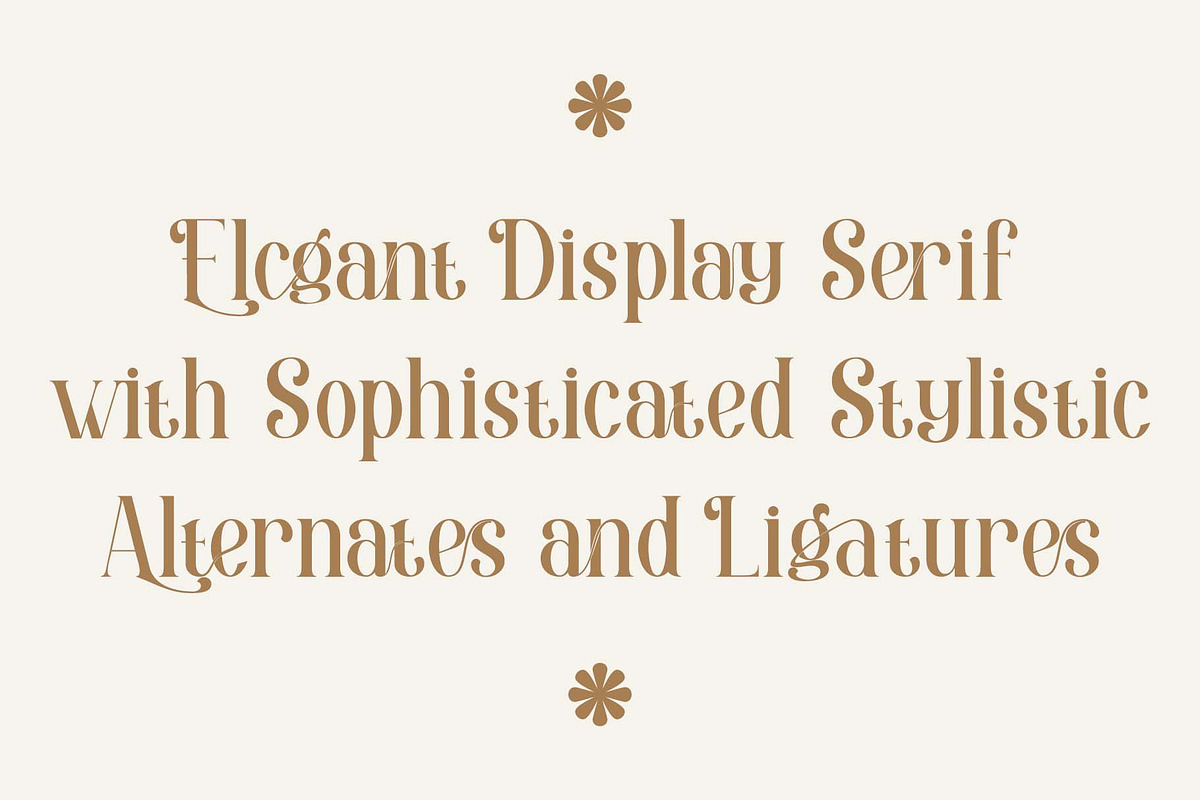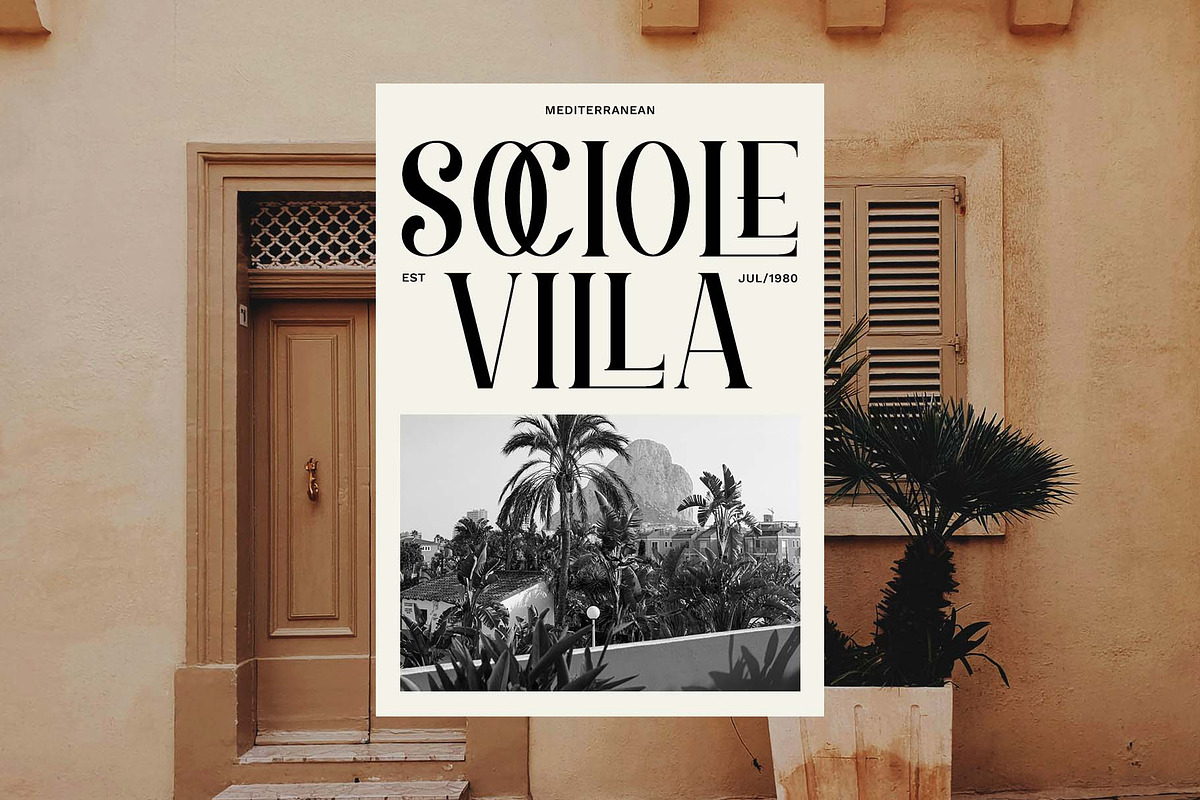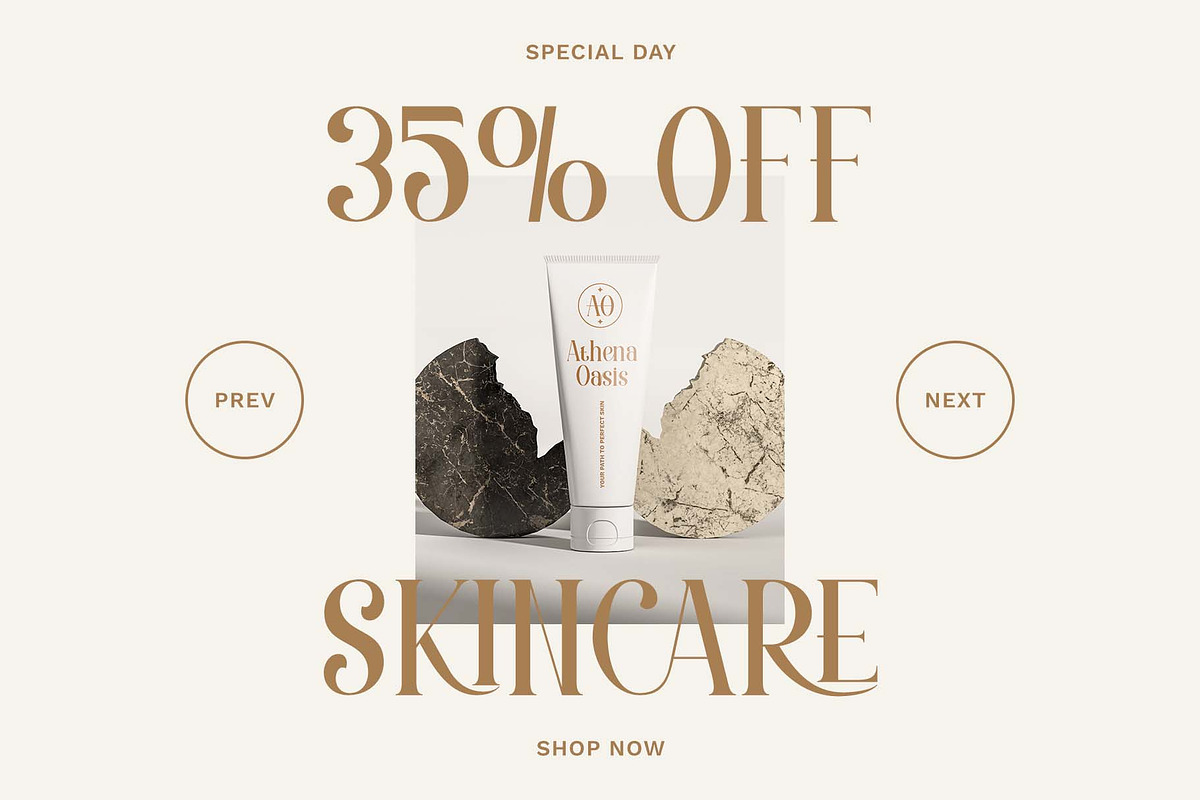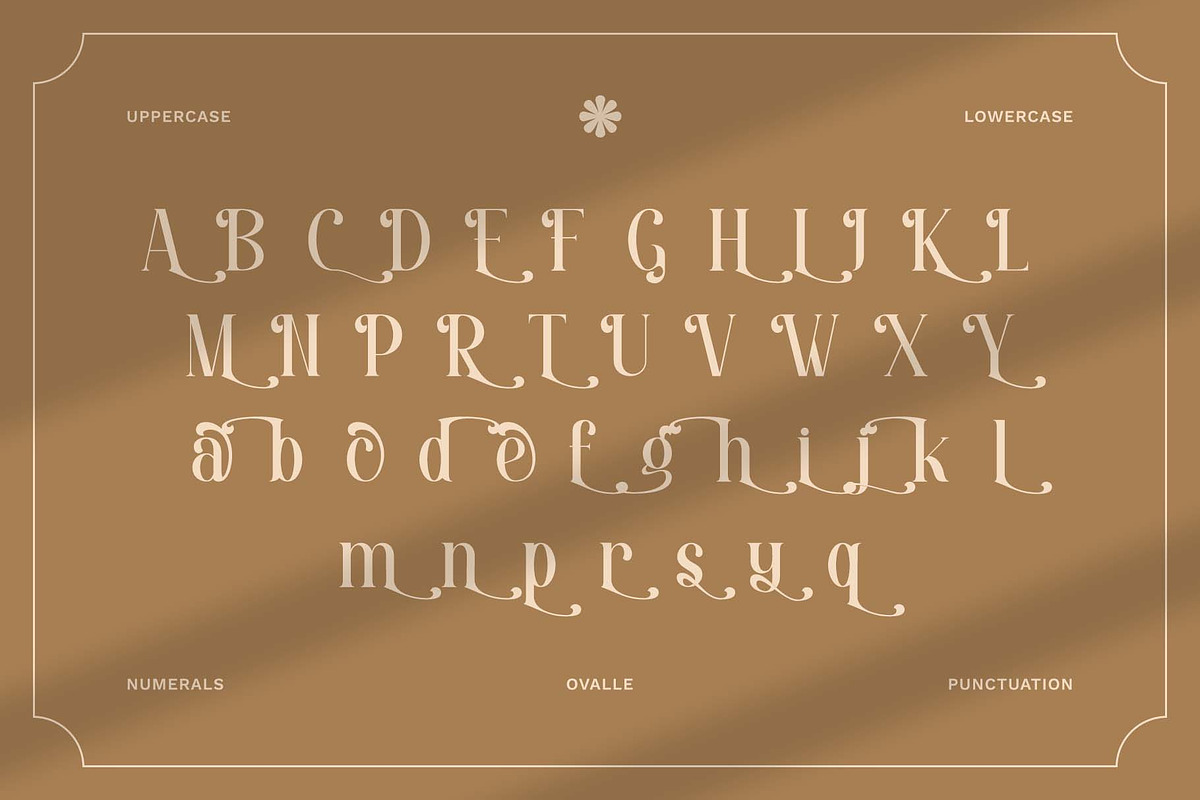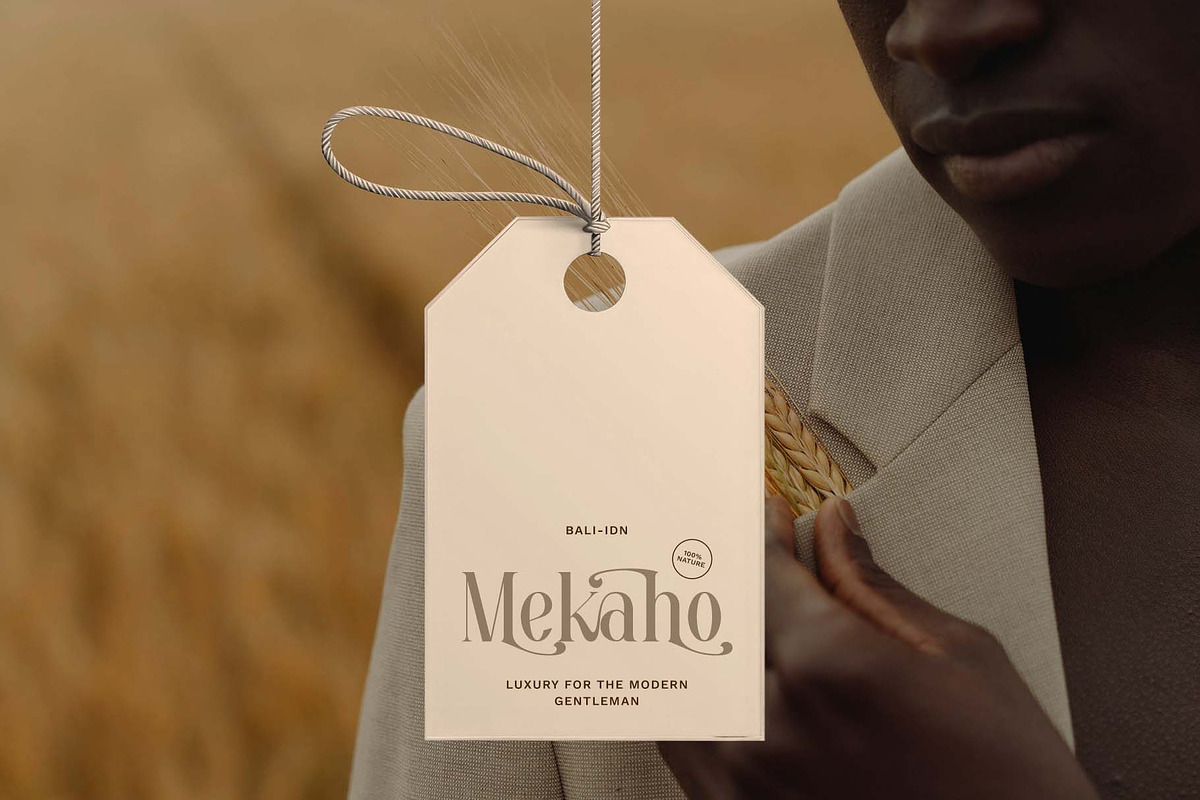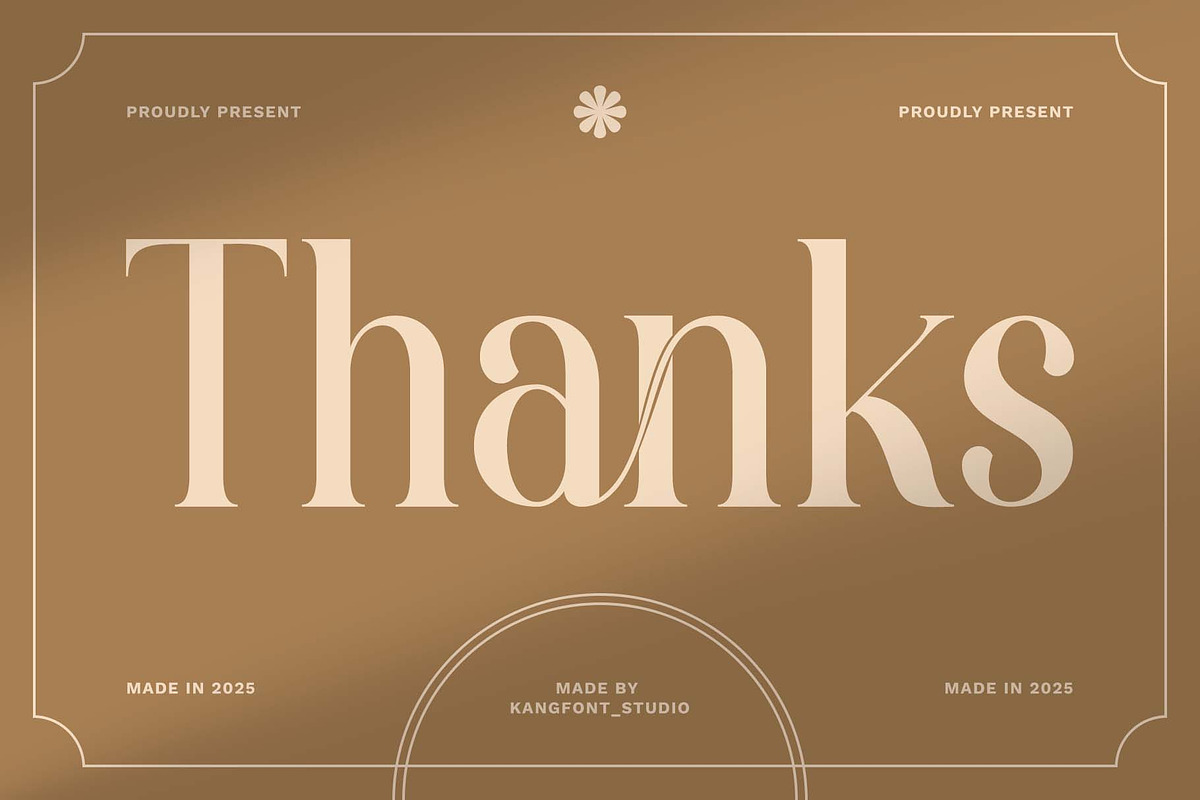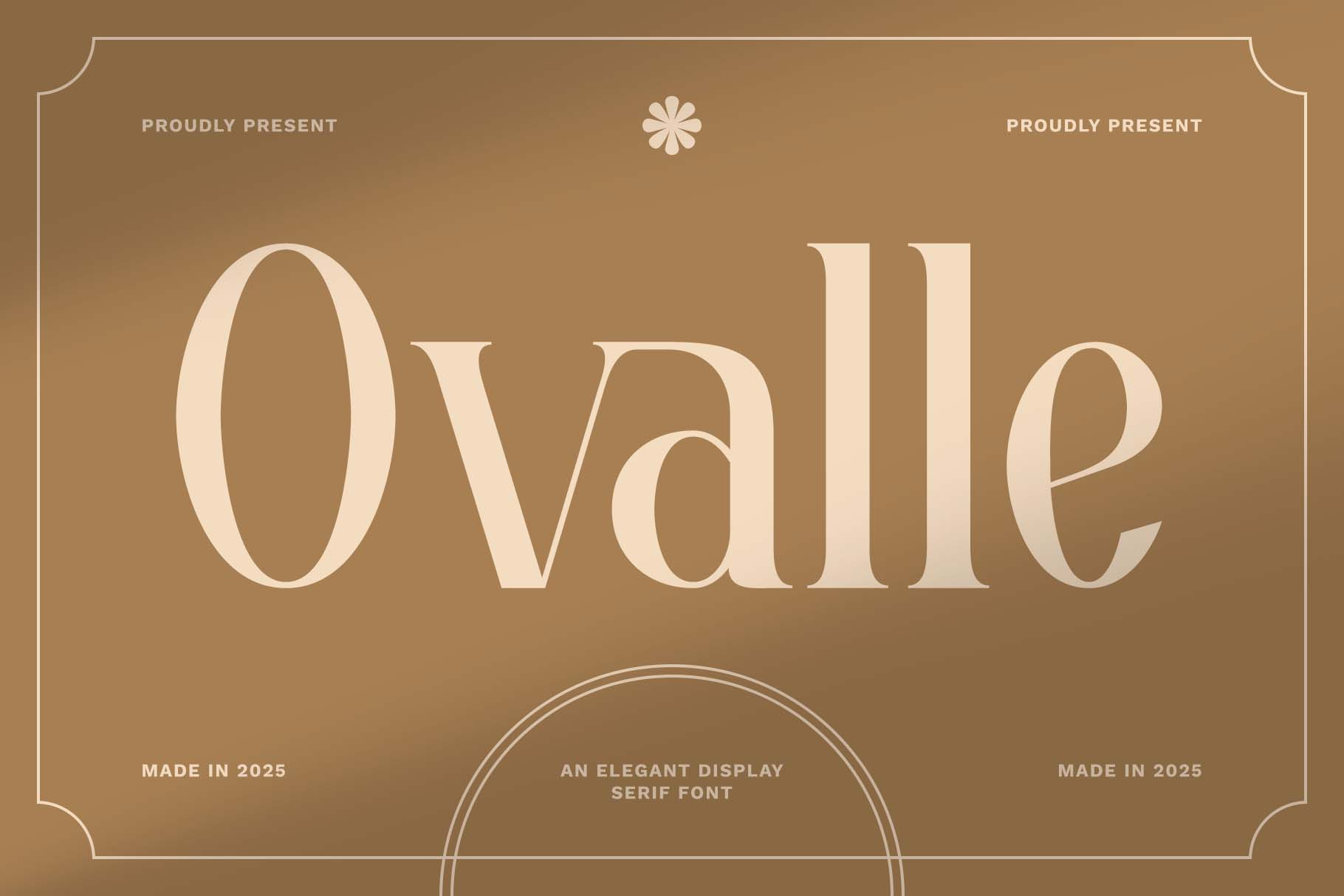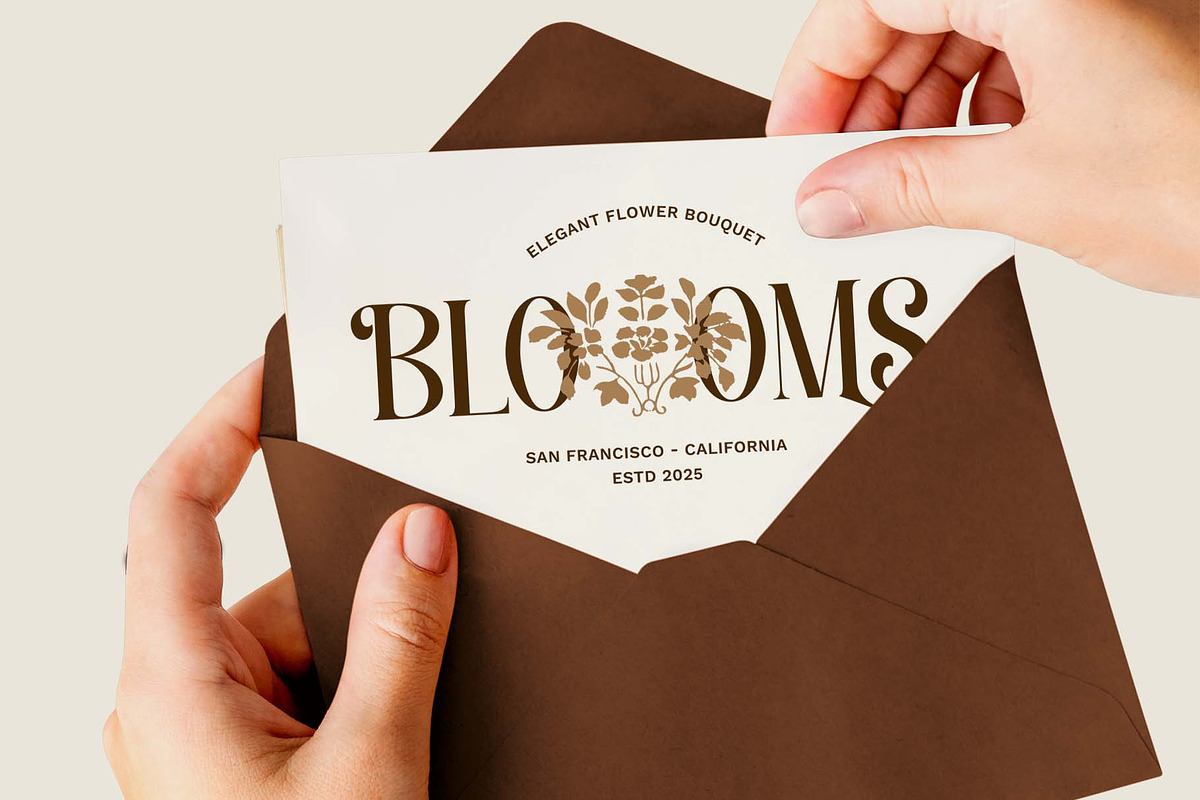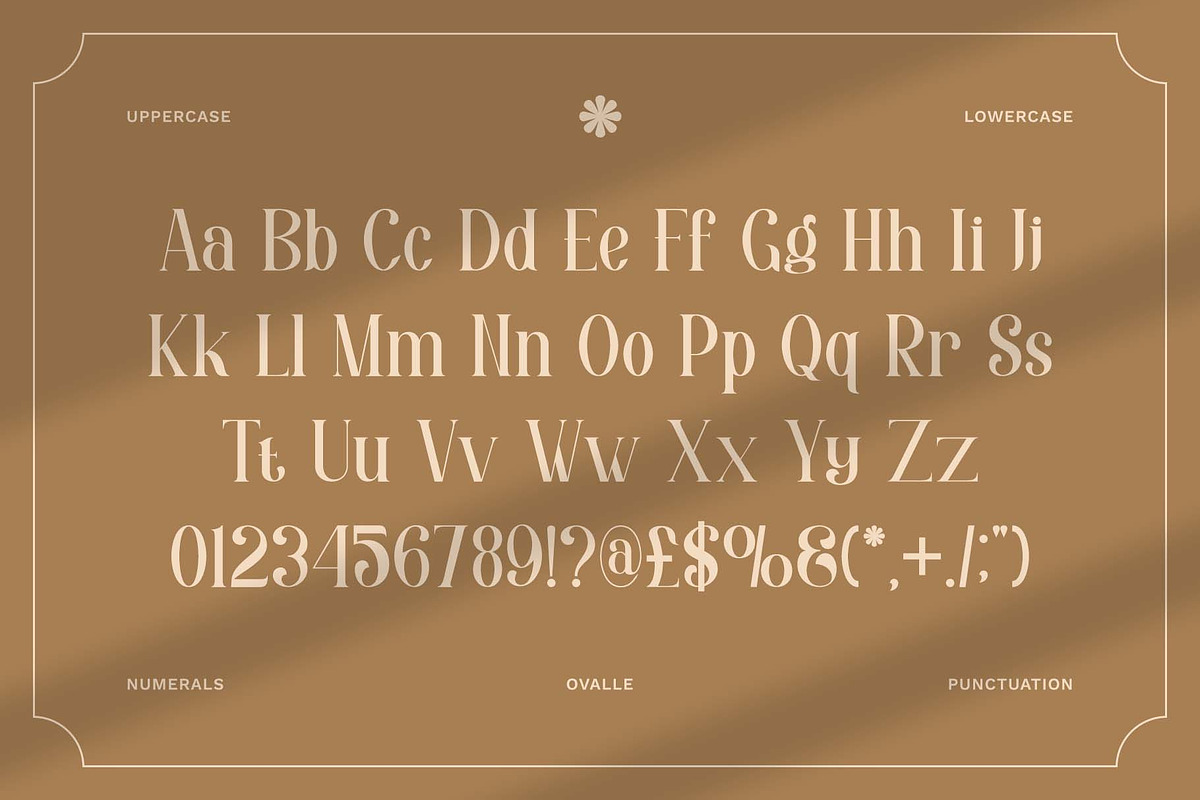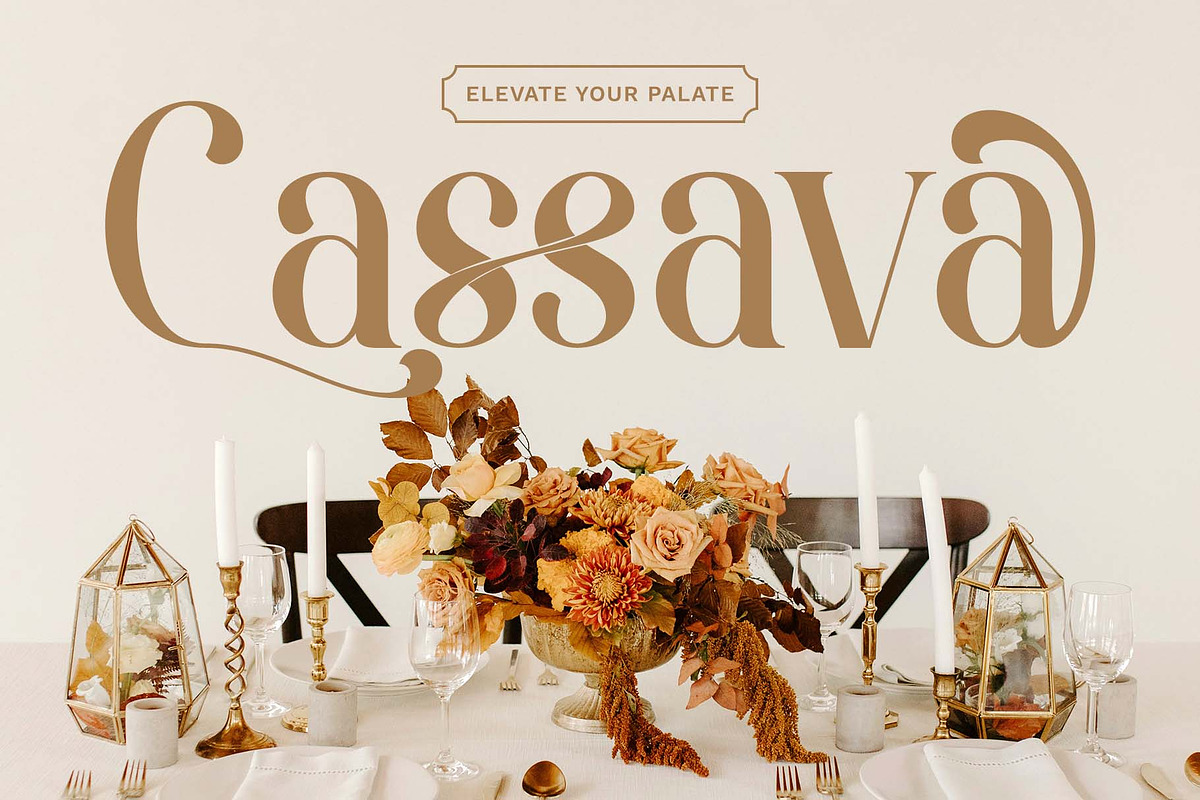
Ovalle – Elegant Display Serif Font
Ovalle is an elegant display serif font that exudes luxury and sophistication. Designed to combine classic charm with a modern touch, Ovalle features smooth curves and balanced thick-thin contrasts, creating a refined and graceful look.
This font is perfect for various design needs, including branding, wedding invitations, premium product packaging, editorials, posters, and other creative projects requiring an exclusive feel. Ovalle’s unique letterforms enhance visual appeal while maintaining excellent readability.
- Elegant design with sharp yet smooth serifs
- Balanced thick-thin contrast for a timeless and modern feel
- Ideal for headlines, logos, packaging, and premium branding
- Includes uppercase, lowercase, numerals, and punctuation
- Ligature & Stylistic alternate